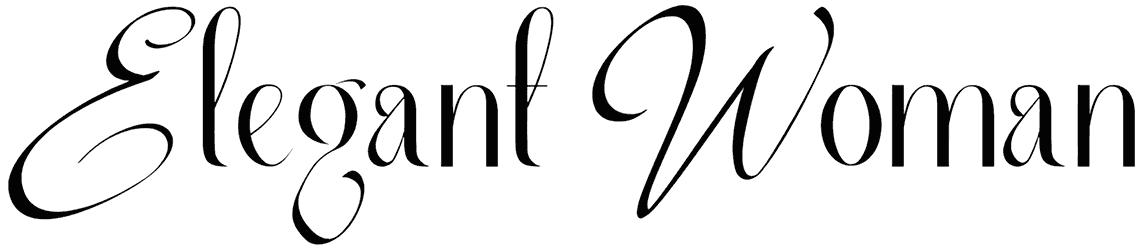
Simple Font
Introducing Simple, a charming calligraphy font with such an attractive style. Despite its name, it is structured in a complex yet professional way without putting readability in danger.
It ensures the result of your design will stand out from the crowd, providing complete peace of mind. Last but not least, you can use this font for wedding invitations, photo overlays, personalized gift cards, magazine covers, apparel printings, and much more.